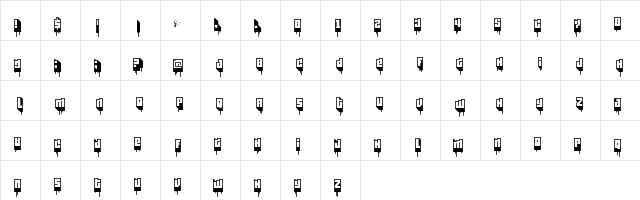
Lame, Dude! Regular
| Designer | Tobias Sommer |
Design Context for Lame, Dude! Typeface
Lame, Dude! is a composed and adaptable typeface that performs quietly and consistently across a wide range of design contexts.